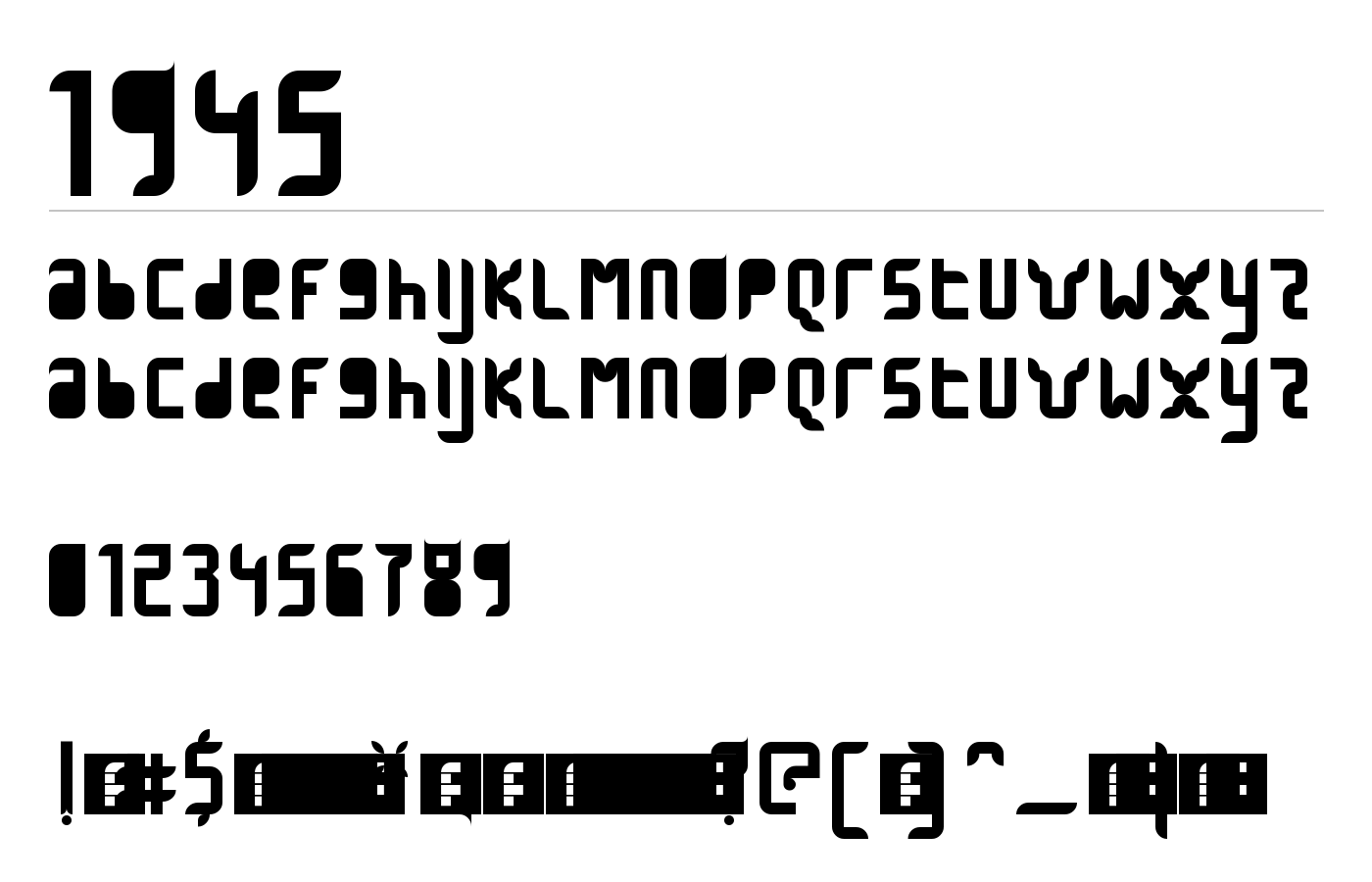
1945 is a bold, geometric sans serif font with a strong retro-futuristic vibe. Its compact, blocky letterforms feature unique angular cuts that give it a distinctly modern yet vintage feel, making it ideal for striking headlines, branding, and creative design projects that want to evoke both innovation and nostalgia. This font stands out with its playful and rebellious personality, perfect for eye-catching displays and distinctive visual statements.
1945 Font